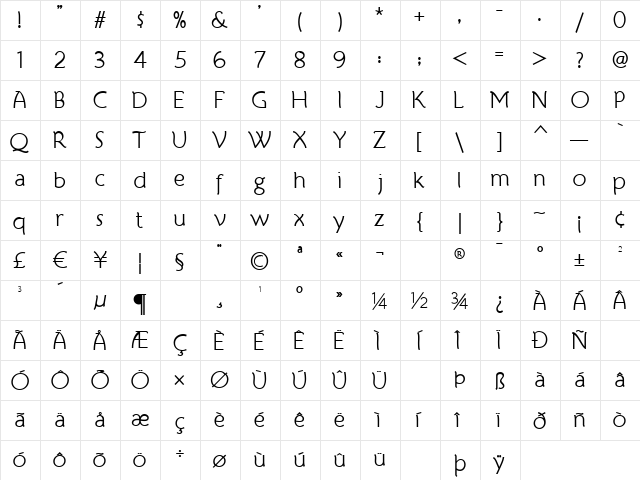
Atelier Sans Itc Book Regular
Design Context for Atelier Sans Itc Book Typeface
Atelier Sans Itc Book takes a measured approach to typography — its balanced proportions and neutral character make it a reliable workhorse for both digital and print work.